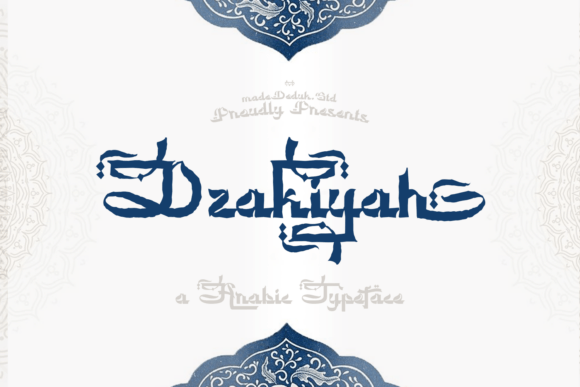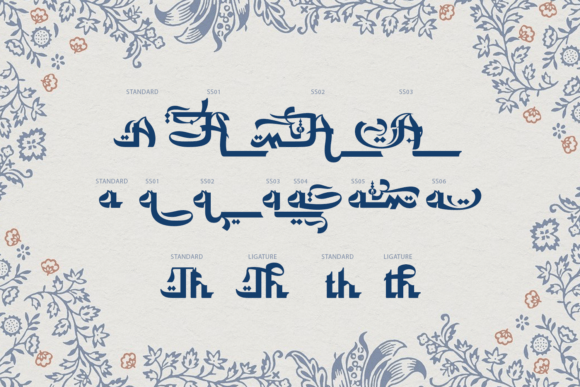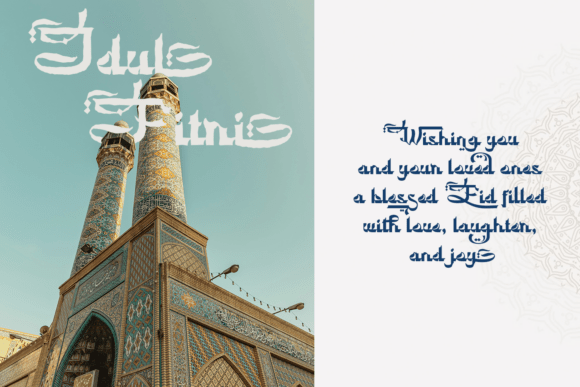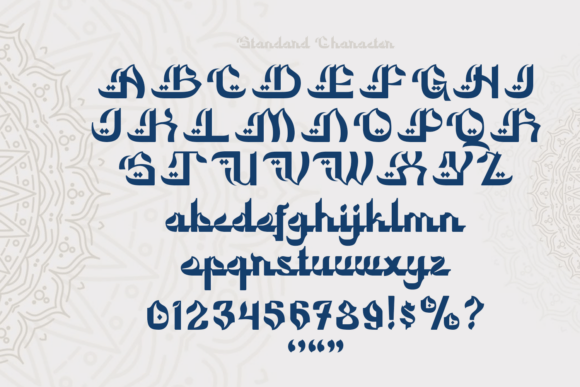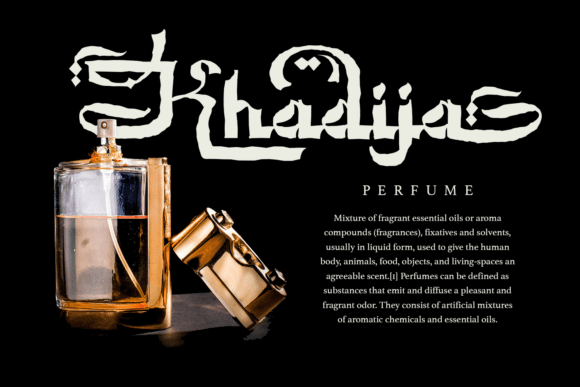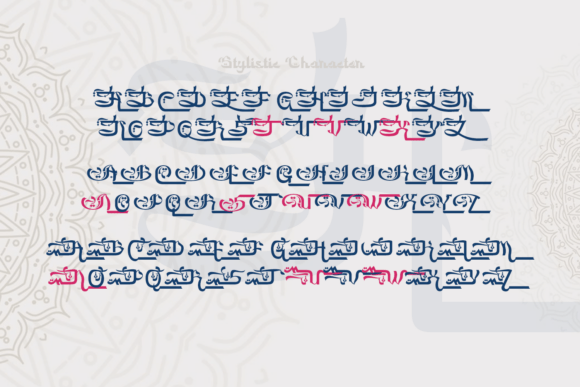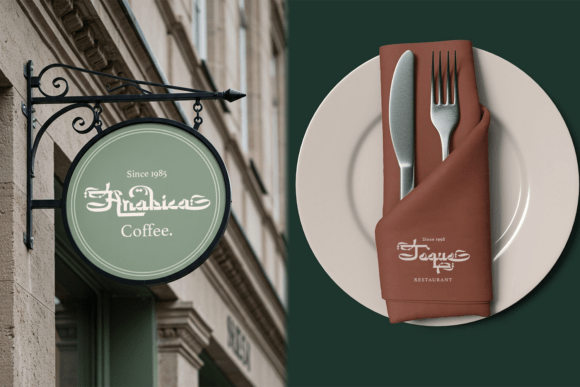
Unleashing the Magic of the Orient: Introducing Dzakiyah Font
Have you ever stumbled upon a beautiful Arabic phrase etched into the walls of an ancient mosque, or a majestic calligraphy piece adorning the pages of a vintage Quran? Those moments of discovery often spark a deep fascination with the intricate beauty of Middle Eastern script. As designers, we’re constantly seeking ways to infuse our work with cultural authenticity and timeless elegance. This is where Dzakiyah Font comes in – a stunning Arabic-style display font that masterfully blends traditional calligraphy with a modern creative edge.
Dzakiyah Font is more than just a typeface; it’s an experience that transports your designs to the heart of the Orient. Its unique horizontal emphasis, dramatic swashes, and intricate ornamental terminals make it an extraordinary choice for luxury branding, cultural events, and high-end packaging. By incorporating Dzakiyah Font into your visual identity, you’ll add a sense of polished cultural prestige and professional intensity to your work.
Dzakiyah Font Key Features
- Unique Characteristics: Dzakiyah Font features a unique blend of traditional and modern design elements, with intricate details and elegant lines, making it perfect for creating visually appealing and sophisticated designs.
Dzakiyah Font Review
Overall, I’d say the Dzakiyah Font is a unique and intriguing addition to any design project. ✨ One of its standout features is its versatility, with a range of weights and styles that can be used to create a wide variety of visual effects. From elegant, cursive scripts to bold, block-letter headings, the Dzakiyah Font has got you covered.
Another great aspect of this font is its ability to add a touch of cultural flair to your designs. Its Middle Eastern-inspired design elements give it a distinctive, exotic feel that’s perfect for projects that require a bit of international flair.
- Wide range of weights and styles
- Unique, Middle Eastern-inspired design elements
- Perfect for adding cultural flair to your designs
- Some characters may not be available in all languages
- Not ideal for use in very small sizes
- May not be suitable for projects that require a very formal, professional tone
- ⚠️ Does not include a comprehensive character set, which may lead to substitution of glyphs
The Dzakiyah Font is a great choice for designers looking to add a bit of flair to their projects. While it may have some limitations, its unique design elements and versatility make it a valuable addition to any design toolkit.
Getting the Most Out of Dzakiyah Font
To get the most out of Dzakiyah Font, try the following tips:
- Use the font in combination with other design elements to create a cohesive look.
- Consider using the font for headings and titles to create a clear hierarchy of information.
Dzakiyah Font is commonly used for: